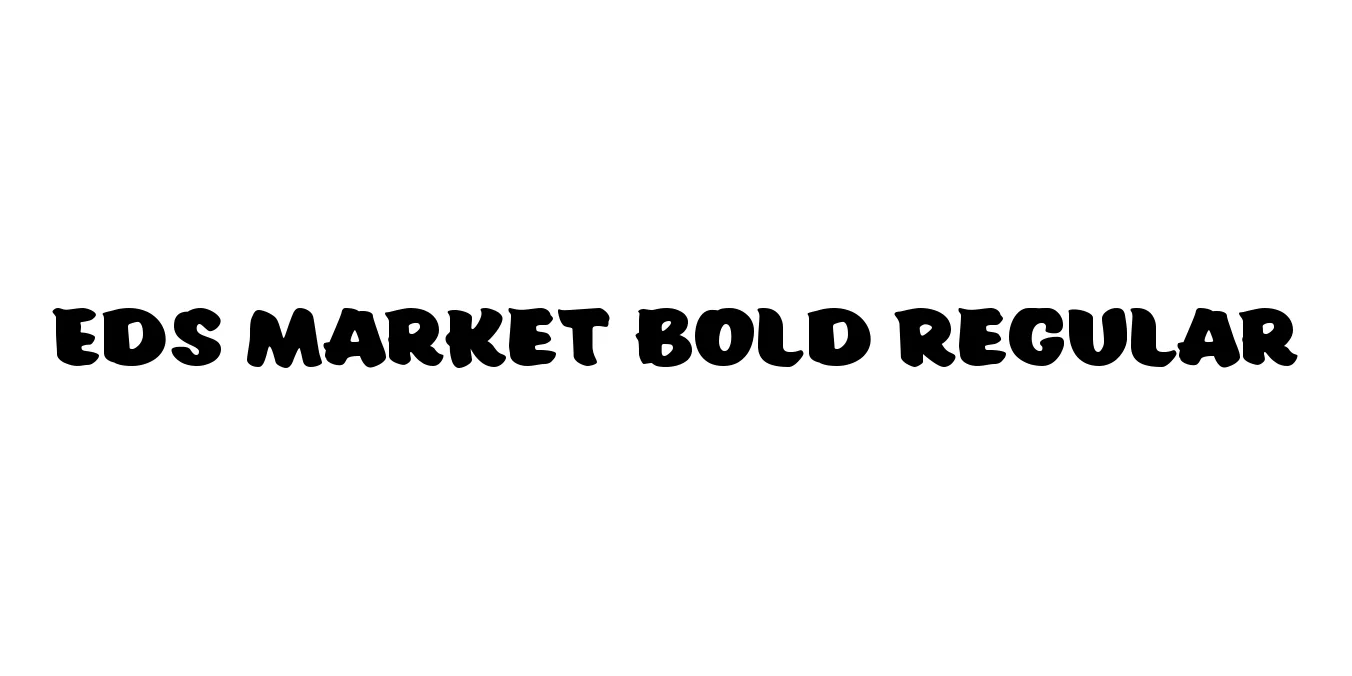
Eds Market Bold Regular
Designed by Laura Worthington
| Category | Script / Hand-drawn |
| Designer | Laura Worthington |
Eds Market Bold Regular is a cornerstone of the Eds Market family, a collection meticulously crafted to emulate the hand-painted signage of mid-century grocery stores and local businesses. Designed by the renowned Laura Worthington, this typeface embodies the charm and unrefined energy of 1950s advertising. It successfully bridges the gap between classic brush lettering and modern digital utility, offering a warm, humanistic aesthetic that feels both nostalgic and fresh.
The Bold Regular weight provides a robust and sturdy presence, making it ideal for display use where personality is paramount. It features a variety of unique ligatures and contextual alternates that mimic the natural flow of a sign painter's brush. This font is perfect for creators who want to avoid the sterile look of traditional geometric fonts in favor of something that feels handmade, authentic, and full of character.
Eds Market Bold Regular Best Uses
Ideal for logos of craft breweries, local bakeries, and boutique grocery stores.
Perfect for organic food labels and artisanal product packaging that needs a human touch.
Great for high-impact headlines in retro-style print and social media campaigns.
Excellent for window displays and physical shop signs requiring high visibility and character.